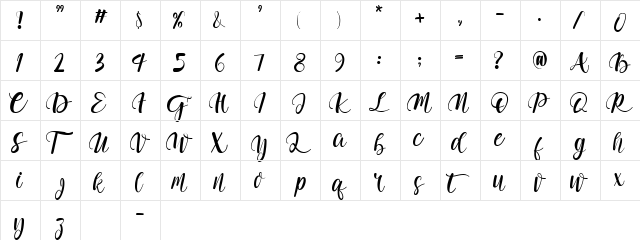
Adelwish Regular
| Designer | Lettersiro 2018 |
Design Context for Adelwish Typeface
Adelwish is a composed and adaptable typeface that performs quietly and consistently across a wide range of design contexts.